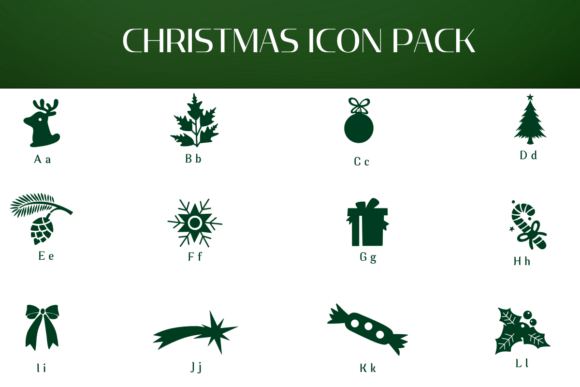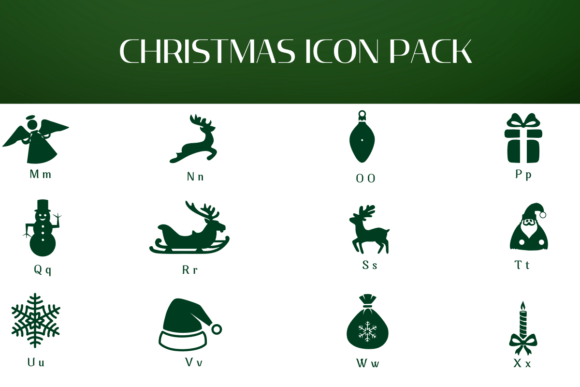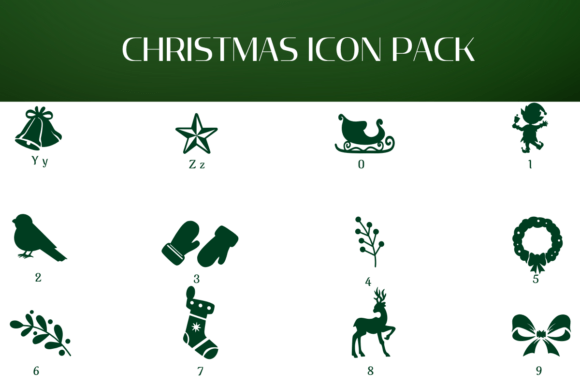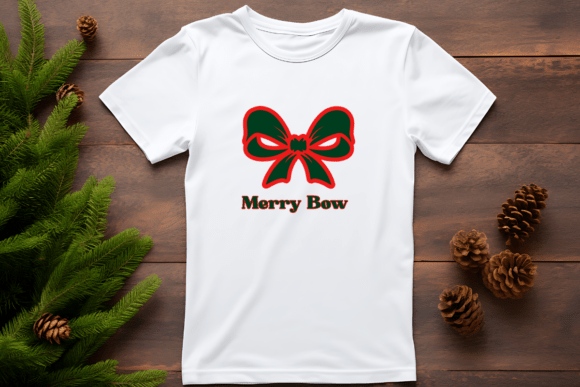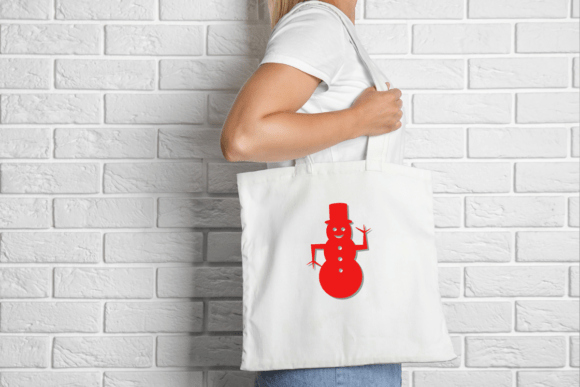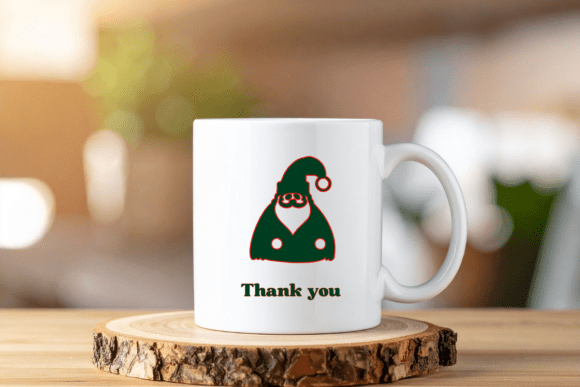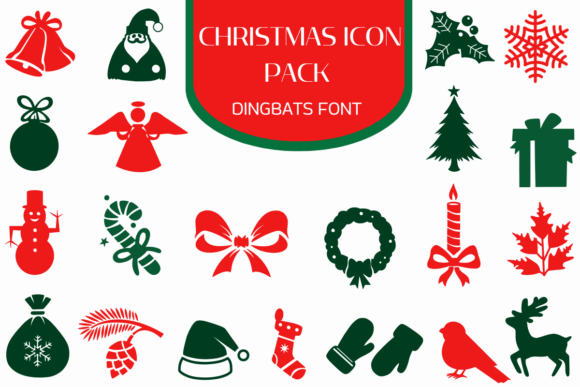
Introducing Christmas Icon Pack Font: A Festive Dingbats Font for All Your Holiday Designs
Are you looking for a unique and festive font to add some holiday cheer to your designs? Look no further than the Christmas Icon Pack Font! This dingbats font is perfect for designers, crafters, and writers who want to add a touch of Christmas magic to their work. In this article, we’ll explore the features and uses of Christmas Icon Pack Font, and show you how to make the most of this versatile font.
What is Christmas Icon Pack Font?
Christmas Icon Pack Font is a dingbats font, which means it’s a font made up of symbols, icons, and glyphs rather than letters and numbers. This font is specifically designed for the holiday season, featuring a wide range of Christmas-themed icons, including trees, bells, snowflakes, and more. With Christmas Icon Pack Font, you can add a festive touch to your designs, from greeting cards and invitations to social media posts and website content.
Uses for Christmas Icon Pack Font
One of the best things about Christmas Icon Pack Font is its versatility. Here are just a few ideas for how you can use this font in your designs:
- Note-taking and journaling: Use Christmas Icon Pack Font to add a festive touch to your notes, journal entries, and diary pages.
- Greeting cards and invitations: Create beautiful, one-of-a-kind greeting cards and invitations for the holiday season.
- Banners and signs: Use Christmas Icon Pack Font to create eye-catching banners and signs for your holiday events and parties.
- Mugs, cards, and gifts: Add a personal touch to your gifts and mugs with custom designs featuring Christmas Icon Pack Font.
- Social media posts: Stand out on social media with festive graphics and posts featuring Christmas Icon Pack Font.
- Stationery and paper crafts: Use Christmas Icon Pack Font to create custom stationery, gift tags, and paper crafts.
Tips for Using Christmas Icon Pack Font
Here are a few tips for getting the most out of Christmas Icon Pack Font:
- Experiment with different sizes and colors: Play around with different sizes and colors to find the perfect combination for your design.
- Combine with other fonts: Mix and match Christmas Icon Pack Font with other fonts to create unique and interesting combinations.
- Use for decorative elements: Use Christmas Icon Pack Font to create decorative elements, such as borders, frames, and dividers.
Why Choose Christmas Icon Pack Font?
So why choose Christmas Icon Pack Font for your holiday designs? Here are just a few reasons:
- Unique and festive: Christmas Icon Pack Font is a one-of-a-kind font that’s sure to add a touch of holiday cheer to your designs.
- Versatile: With its wide range of icons and glyphs, Christmas Icon Pack Font can be used for everything from greeting cards to social media posts.
Christmas Icon Pack Font is a festive and versatile dingbats font that’s perfect for designers, crafters, and writers who want to add a touch of holiday magic to their work. With its wide range of Christmas-themed icons and glyphs, this font is sure to inspire your creativity and help you create unique and eye-catching designs. Whether you’re making greeting cards, social media posts, or banners, Christmas Icon Pack Font is the perfect choice for all your holiday designs.